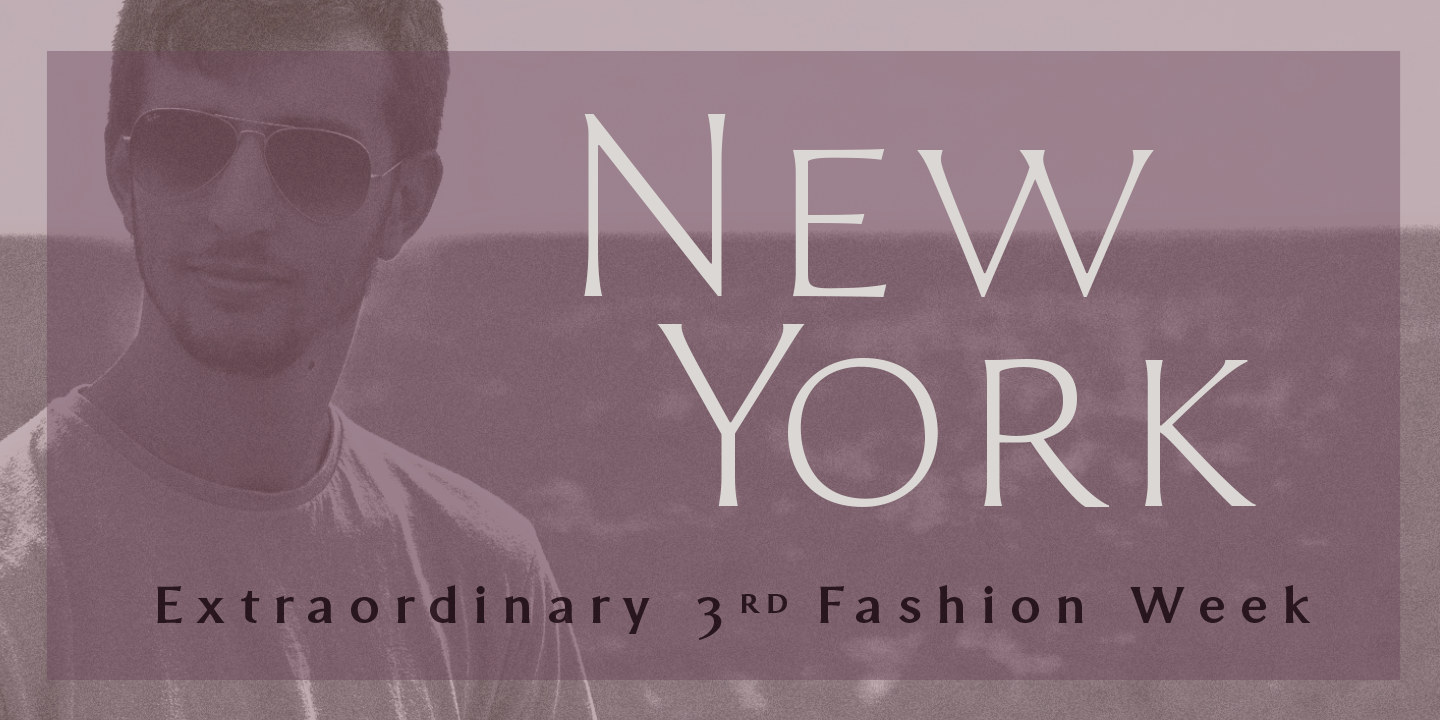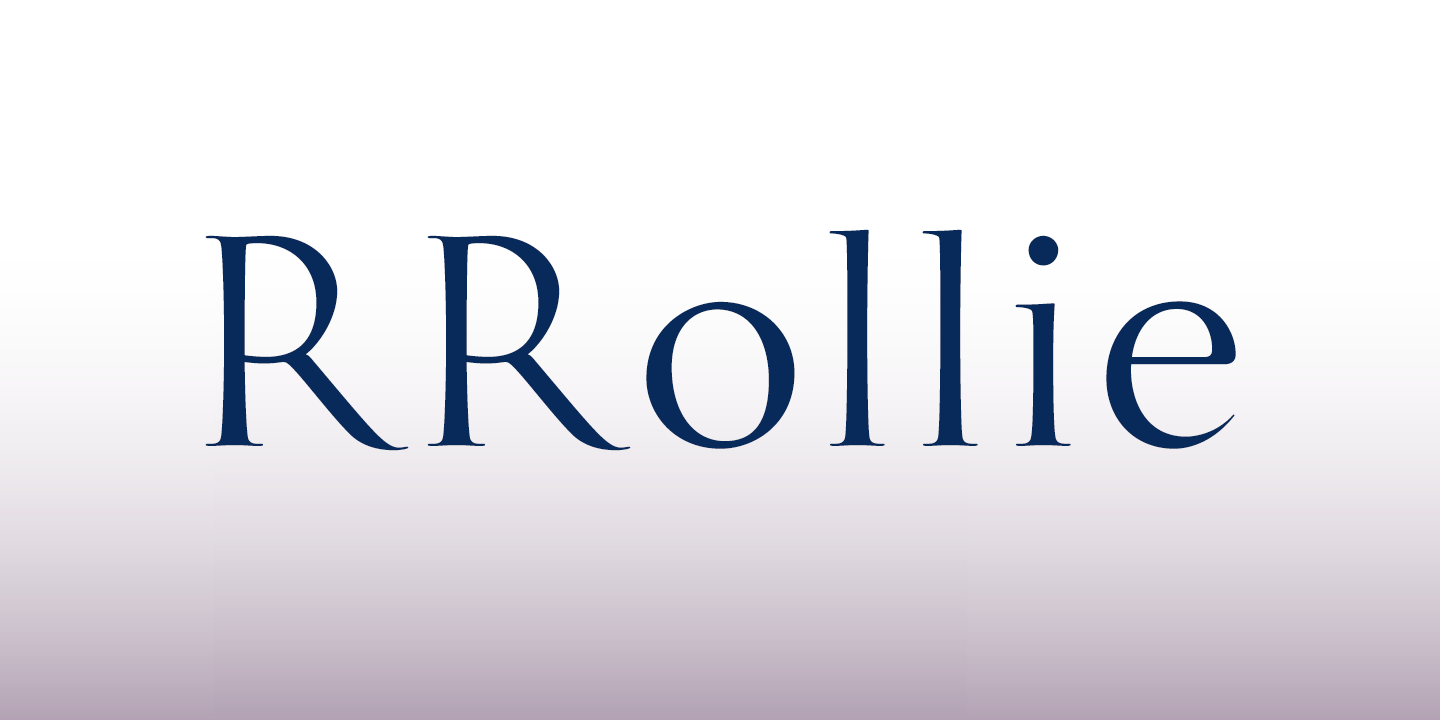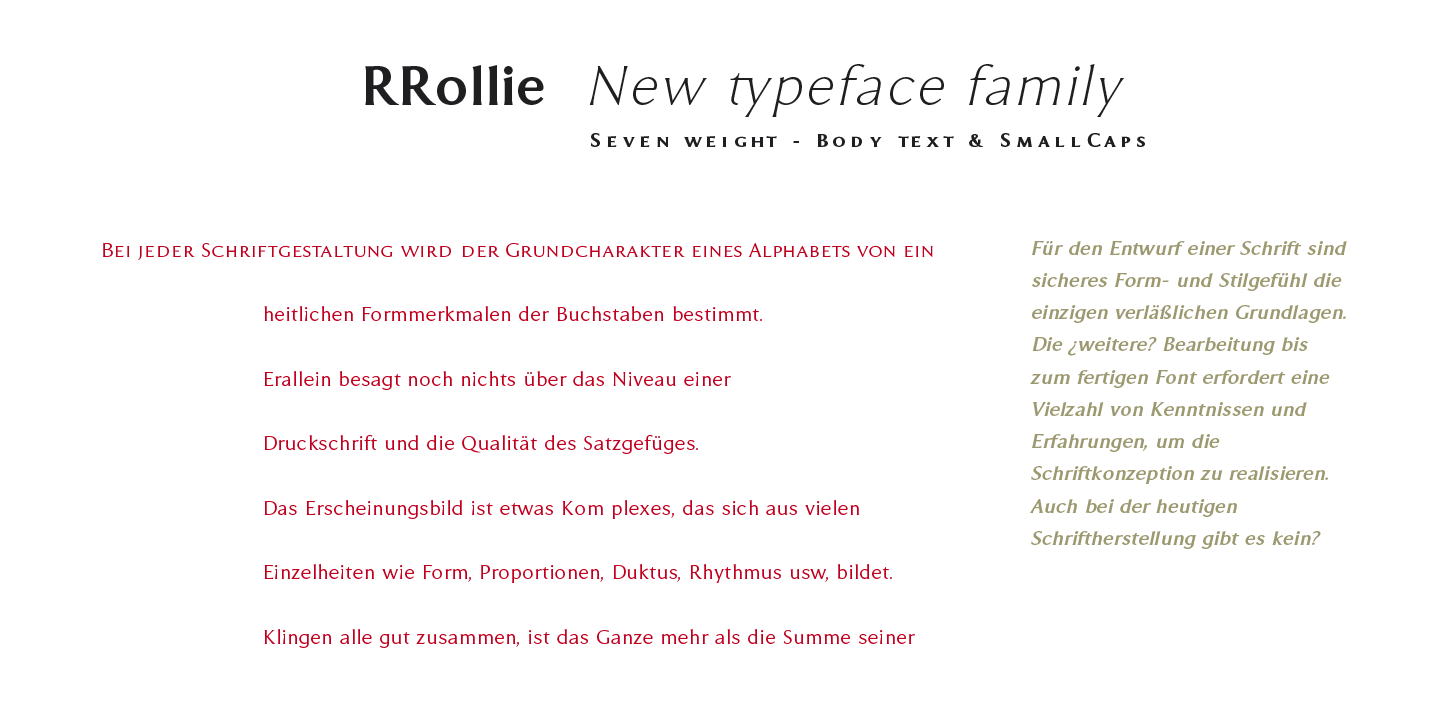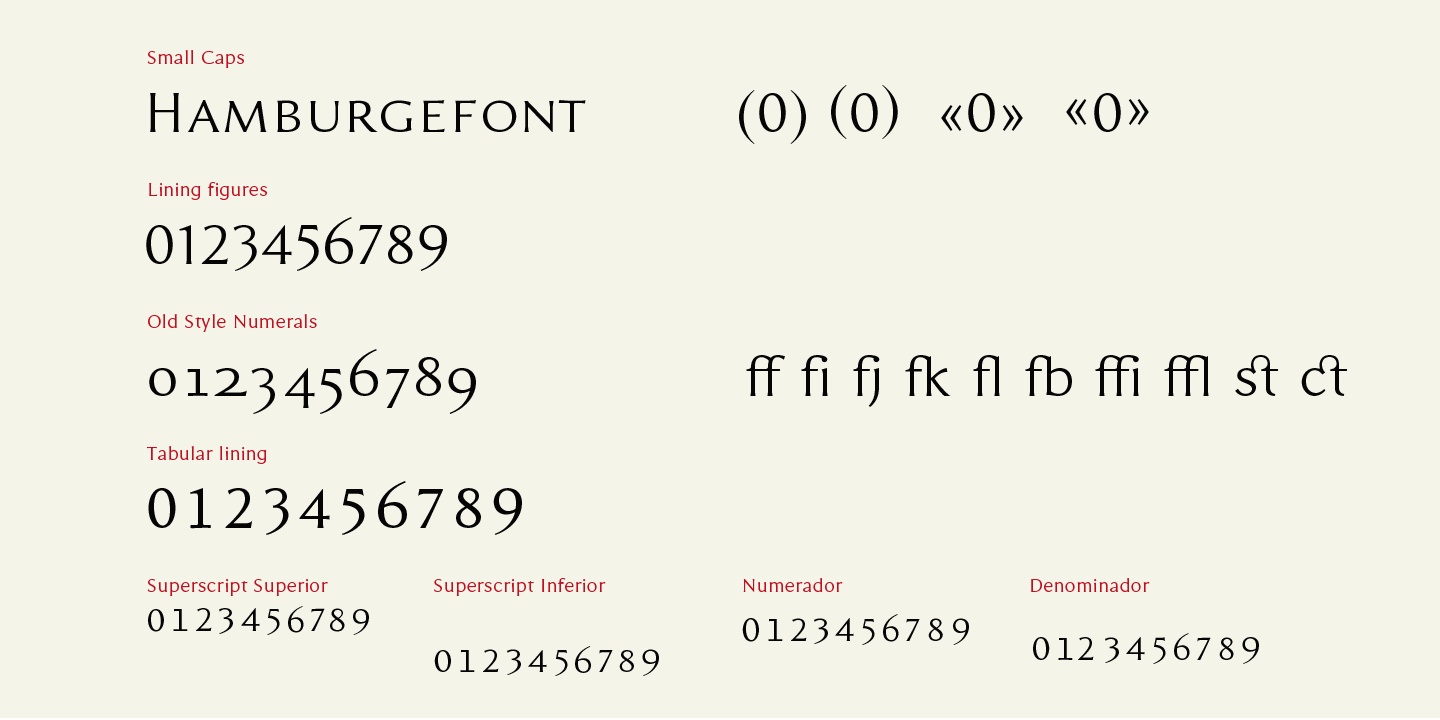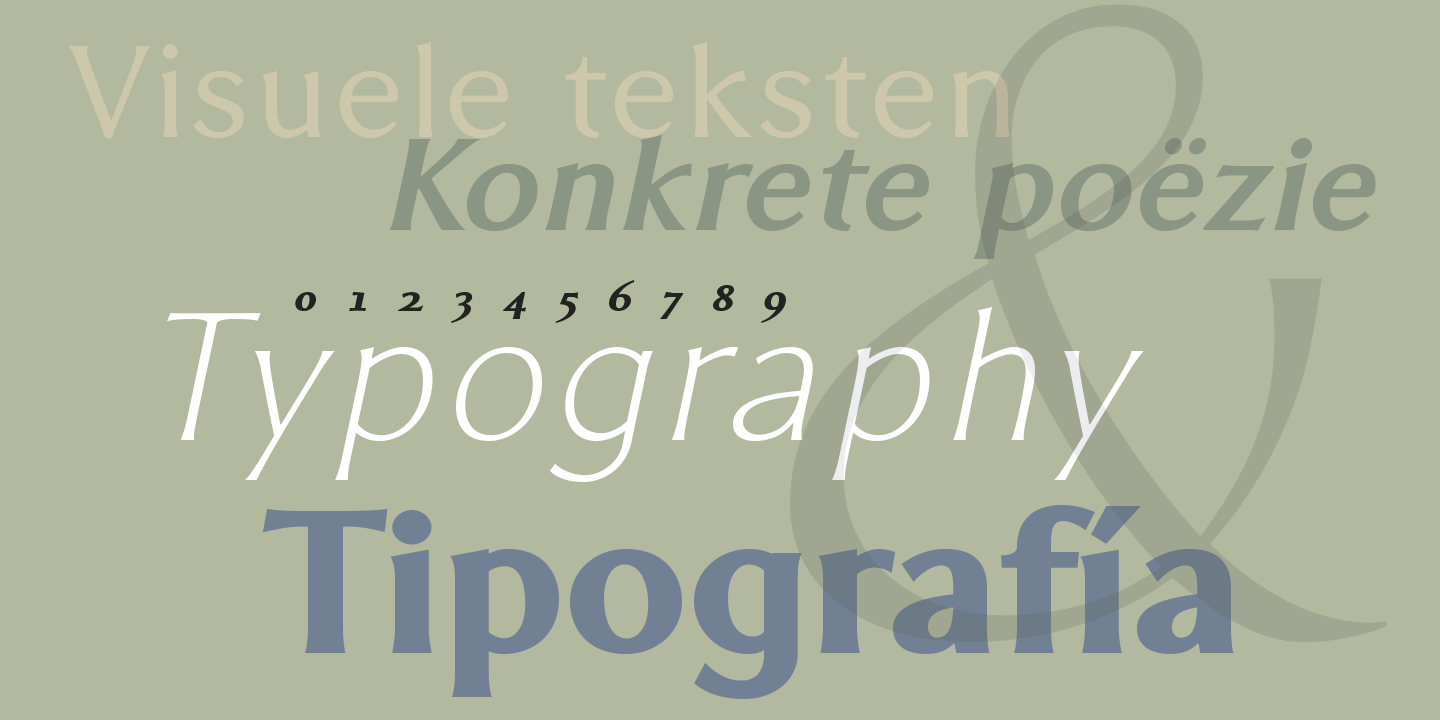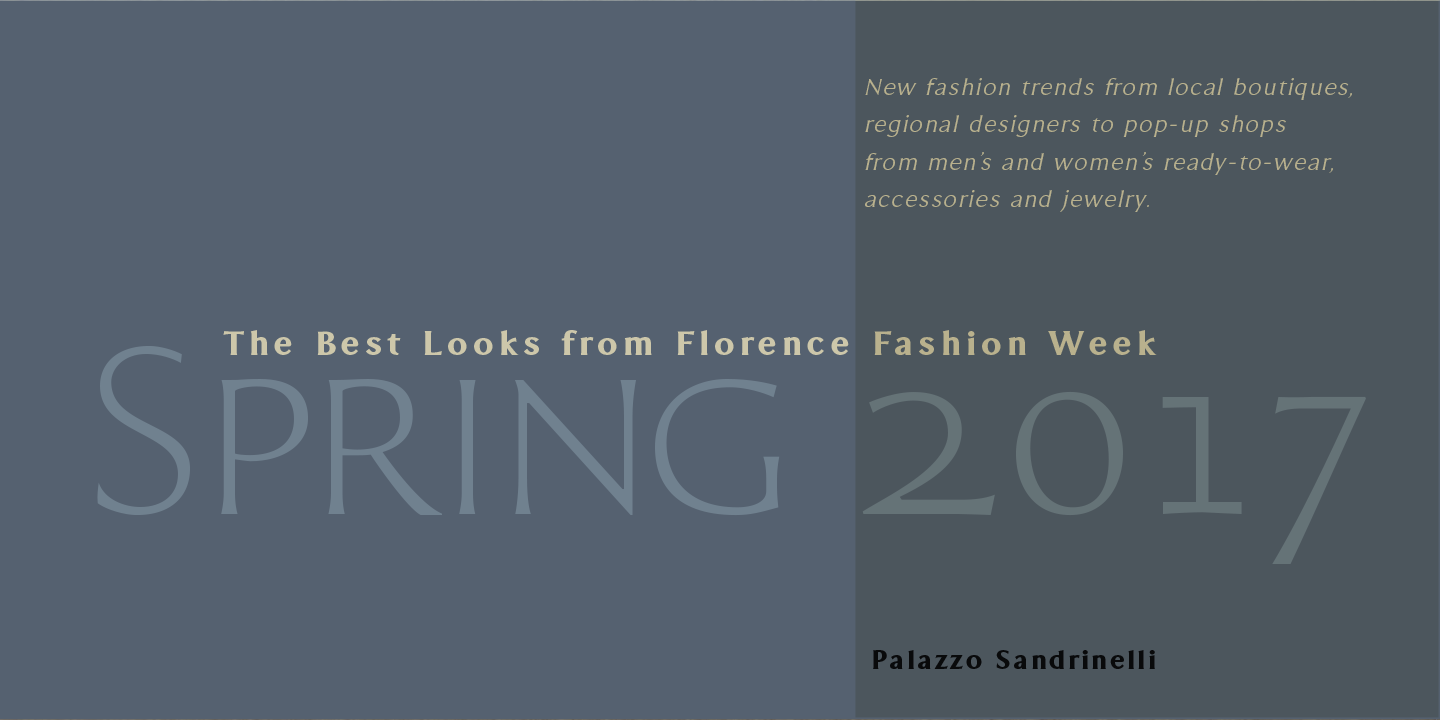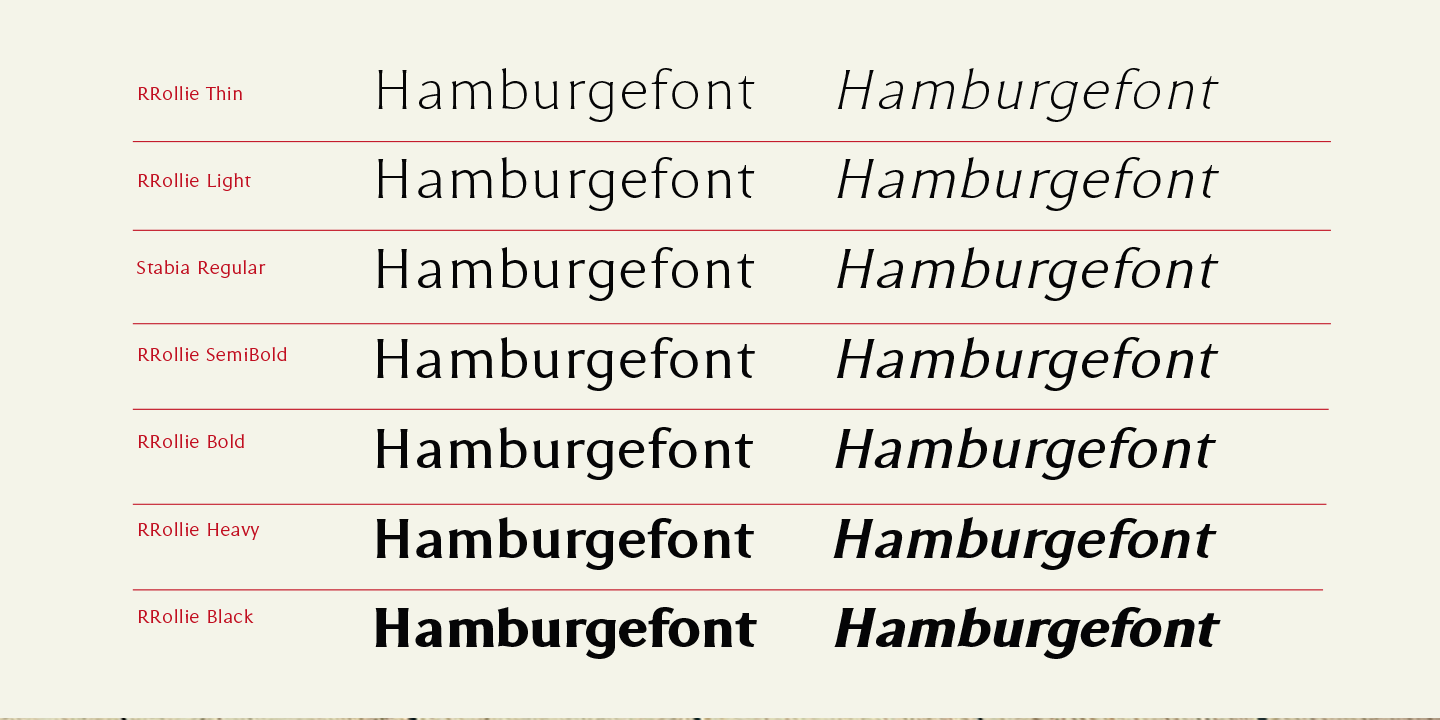
RRollie
A Tribute to Roberto Rollie
Designed in tribute to Roberto Rollie (1935–2003)—a pioneering Argentine designer, photographer, and educator—this typeface reflects his passion for the balanced beauty and clarity of classic Roman capitals. It captures a spirit of intellectual rigor and artistic sensitivity.
Refined Roman Elegance
RRollie is a refined Roman typeface family defined by its subtle, elegant serifs and compact ascenders and descenders. Its delicate contrast and agile counters create a strong visual presence while maintaining excellent readability, making it ideal for a wide range of editorial and branding applications.
Small Caps & Advanced OpenType
RRollie offers advanced OpenType features including standard and discretionary ligatures, small caps, case-sensitive forms, old-style and tabular figures, and extensive Western-language diacritics. These tools provide designers with everything needed for professional, high-end typesetting.